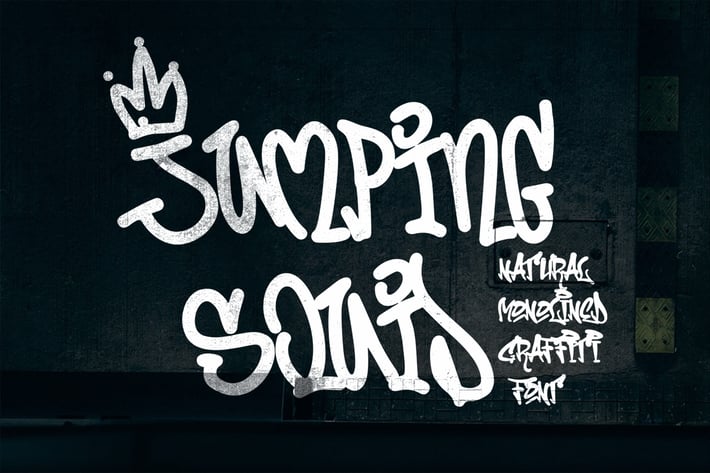
Jumping Squid - Monoline Graffiti Font
Jumping Squid is a Handwritten font with a Natural monoline graffiti style, perfect for your awesome urban designs. It will elevate a wide range of design projects to the highest levels, be it branding, headings, designs, invitations, signatures, logos, labels, and much more!